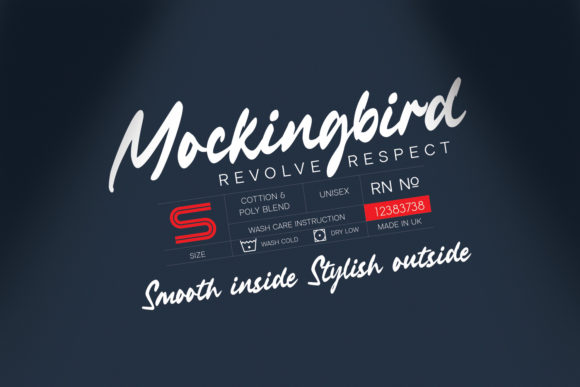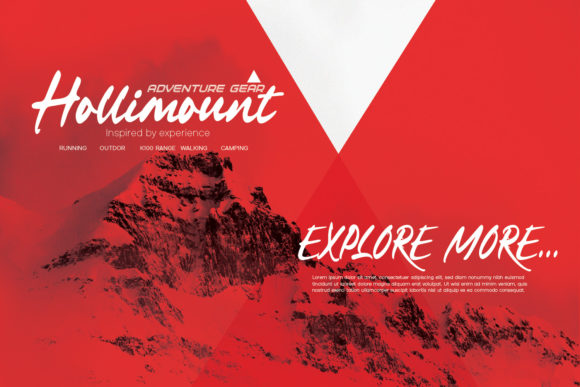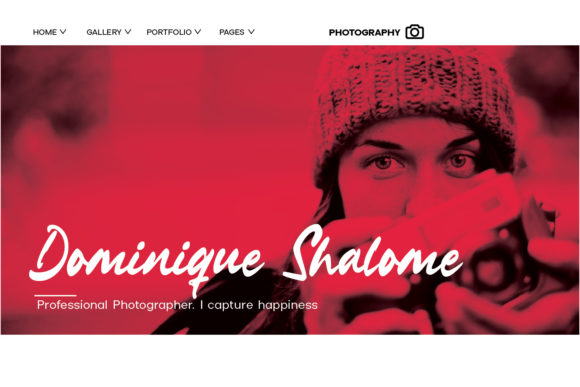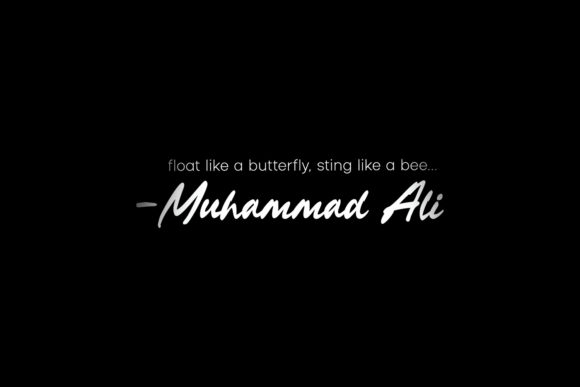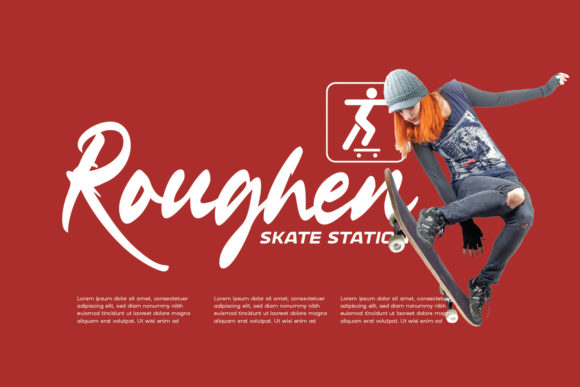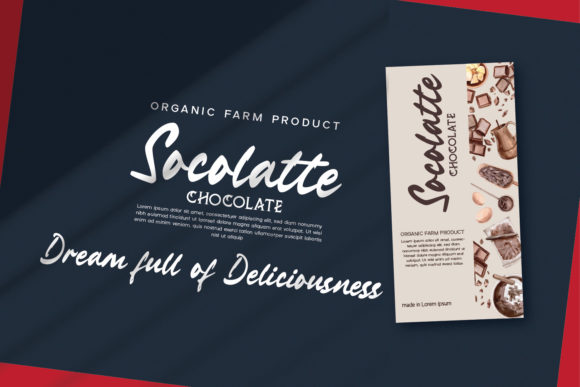
Introduction to Longbeach Font
Longbeach is a casual yet distinct brushed handwritten font.
Key Features of Longbeach Font
Why Choose Longbeach Font?